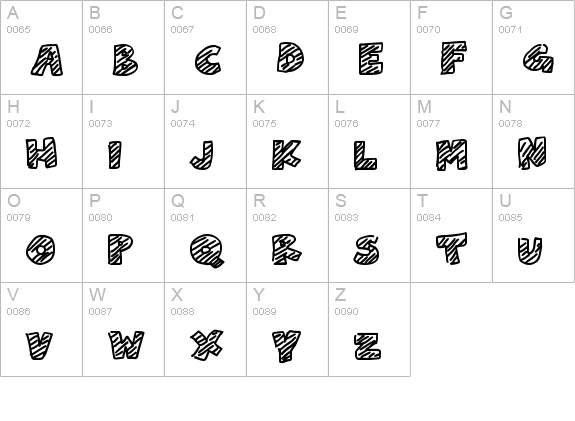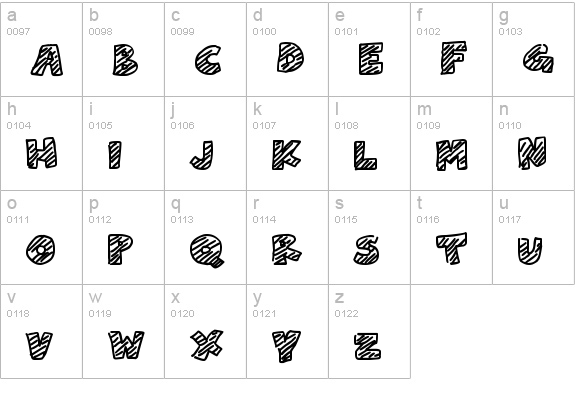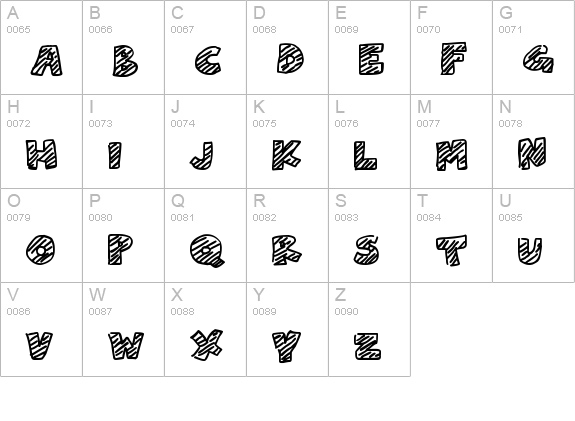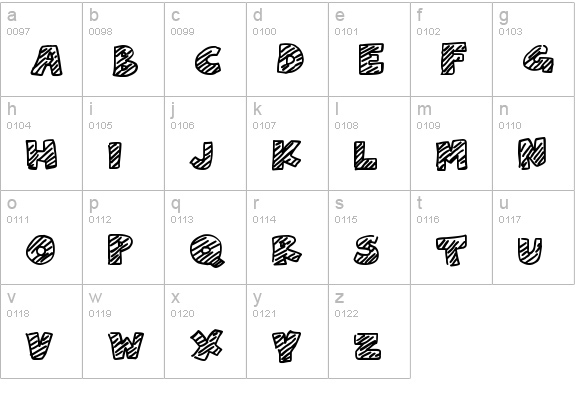
Chalk Dash Font Details
Chalk Dash is a donationware font in the Fancy > Comic category, designed by Darrell Flood. It has been downloaded 97 times and is available for Windows, Mac and Linux.
Chalk Dash font is a whimsical and playful typeface that exudes a sense of creativity and fun. With its hand-drawn style and irregular strokes, this font is perfect for adding a touch of charm to your projects. Whether you're designing a poster, invitation, or greeting card, Chalk Dash font will bring a unique and artistic flair to your work.